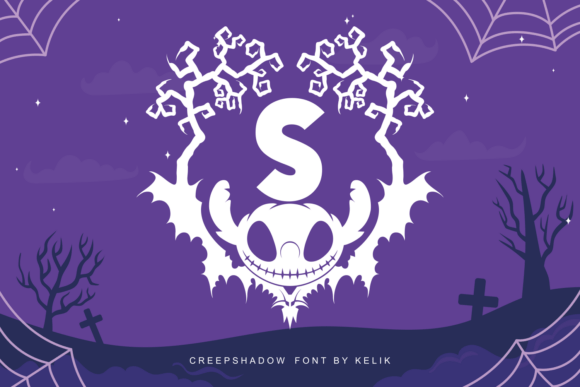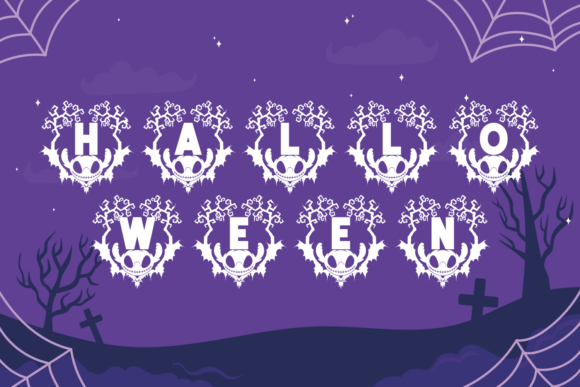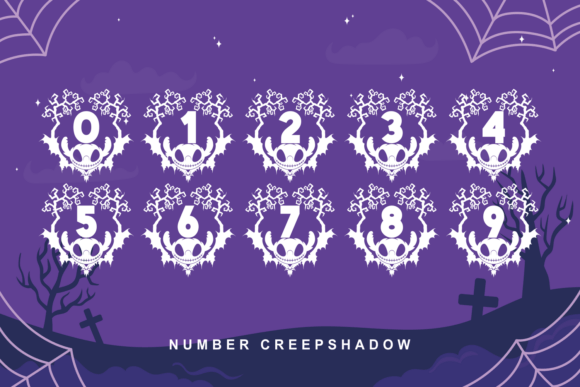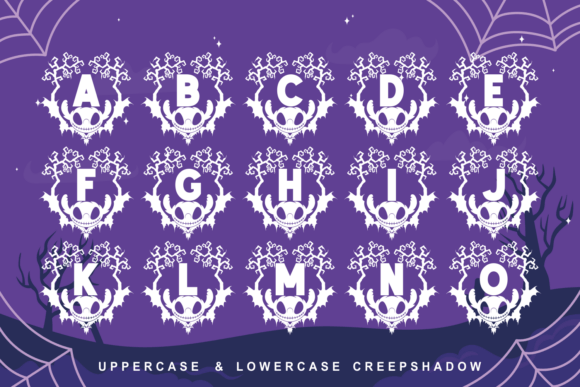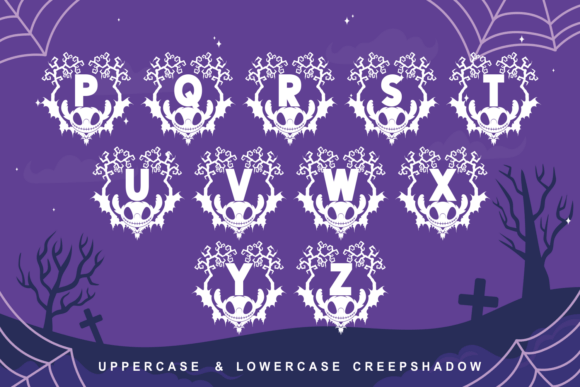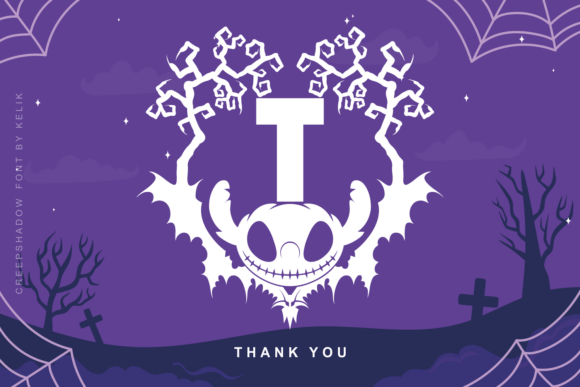
Introduction to Creepshadow Font
As a designer, there’s nothing quite like the thrill of diving into a new creative project, especially when it involves a spooky and whimsical theme. You’re brainstorming ideas, searching for the perfect design resource, and suddenly, you stumble upon the perfect font – Creepshadow Font. This eerie yet playful typeface is sure to add a touch of magic to any design, whether it’s a Halloween party invitation or a seasonal merchandise logo.
What sets Creepshadow Font apart is its bold, symmetrical design, paired with intricate, haunted silhouettes that add a level of sophistication and artistic flair. With its high contrast between clean letterforms and elaborate surrounding motifs, this font is perfect for designers looking to create eye-catching, thematic designs. And the best part? It’s available for free download, complete with a transparent background, making it a valuable asset for any design project.
Whether you’re a seasoned designer or just starting out, Creepshadow Font is a high-quality design resource that’s sure to impress. So why settle for a generic font when you can unleash your creativity with this spooktacular typeface?
Key Features of Creepshadow Font
- High-quality, unique design ideal for creative projects and design resources.
- Perfect for designers seeking a distinctive, gothic-inspired font for their creative projects.
Honest Review: Creepshadow Font
I recently came across the Creepshadow Font and decided to give it a try. As a designer, I’m always on the lookout for high-quality design resources that can elevate my creative project. The Creepshadow Font definitely delivers on this front.
- Unique and eerie design aesthetic that adds a touch of sophistication to any project
What doesn’t:
- ⚠️ Not suitable for all types of projects, particularly those that require a more traditional or formal font
Overall, I’m impressed with the Creepshadow Font. It’s a high-quality design resource that can add a unique touch to any creative project. While it may have some limitations, I think it’s well worth checking out, especially for designers who are looking for something a little out of the ordinary.
Common Use Cases for Creepshadow Font
The Creepshadow Font is a versatile design resource that can be used in a variety of creative projects, including horror-themed designs, spooky graphics, and more. Its high-quality design makes it an ideal choice for designers who want to create unique and professional-looking designs.